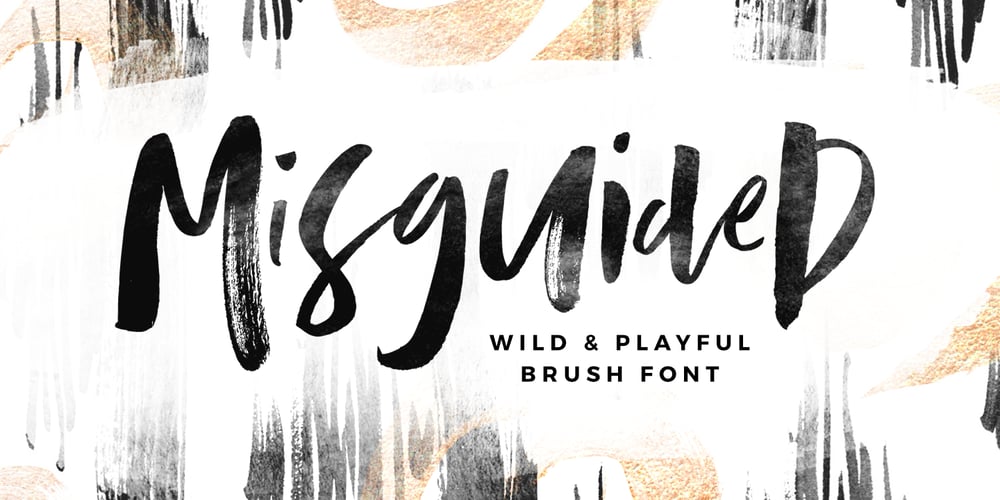
Misguided Font Family was designed by Sam Parrett and published by Set Sail Studios. Misguided contains 3 styles and family package options. Misguided; “to go astray”. This brush font throws out the typography rulebook and breaks away from the mundane letterforms. Thick lines, thin lines, small letters, big letters – it has it all, and thrown into THREE hand-painted character sets which can be mixed up, lowercase or uppercase, giving you a massive amount of customisable layout options for each word. Misguided is guaranteed to add an eye-catching appeal to your logo designs, handwritten quotes, product packaging, merchandise & social media posts.